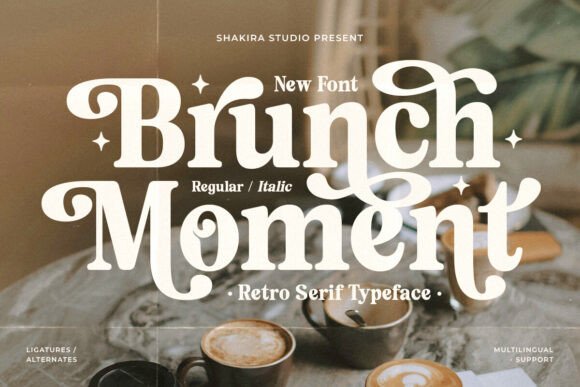
The Brunch Moment Font: A Luxurious Retro Display Serif for Your Creative Projects
Have you ever been in the middle of a design project, and suddenly, you’re stuck on finding the perfect font? I recall a recent experience where a client requested a luxurious and elegant look for their branding, and I was on a mission to find the ideal typeface. That’s when I stumbled upon the Brunch Moment font, a stunning retro display serif font that exceeded my expectations.
What I Love About Brunch Moment ✨
- 💫 Luxurious and elegant design with a retro twist
- ✅ Available in regular and italic styles for versatility
- 🎨 Features elegant alternates and stylish ligatures for added sophistication
- 📚 Perfect for branding, editorial designs, social media, packaging, and more
While Brunch Moment is an exceptional font, there are a few minor considerations to keep in mind:
- 🤔 Limited character set compared to some other fonts, but it’s sufficient for most design projects
- ⚠️ May not be suitable for body text due to its display serif nature; best used for headlines and titles
Brunch Moment was crafted with the intention of capturing the essence of luxury and sophistication. Its designer drew inspiration from classic serif fonts, infusing them with a modern twist and elegant details. The result is a timeless font that adds a touch of refinement to any design project.
Q: What type of projects is Brunch Moment best suited for?
A: Brunch Moment is perfect for branding, editorial designs, social media, packaging, and more, where a luxurious and elegant look is desired.
Q: Can I use Brunch Moment for body text?
A: While Brunch Moment is a stunning font, it’s best used for headlines and titles due to its display serif nature. For body text, consider a more readable font.
Q: Does Brunch Moment support OpenType features?
A: Yes, Brunch Moment features elegant alternates and stylish ligatures, accessible through OpenType features in compatible design software.
Q: Is Brunch Moment available in multiple styles?
A: Brunch Moment comes in regular and italic styles, providing versatility for your design projects.